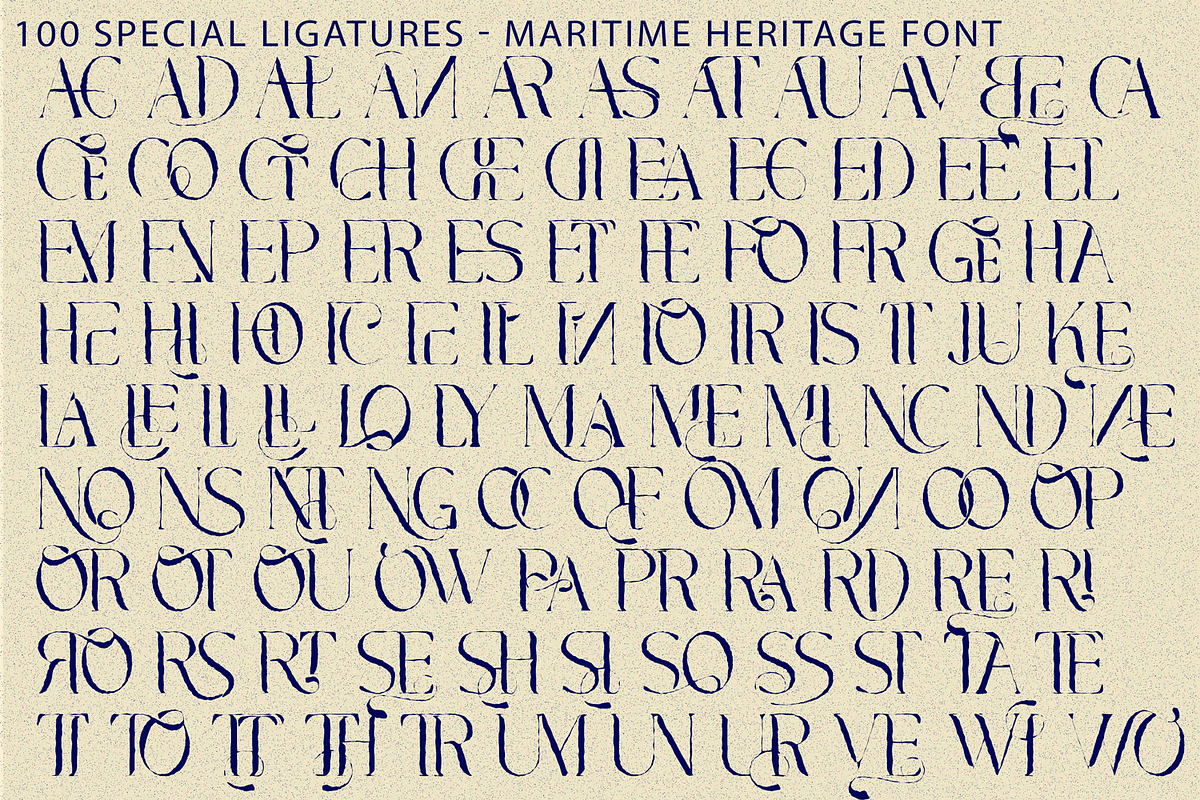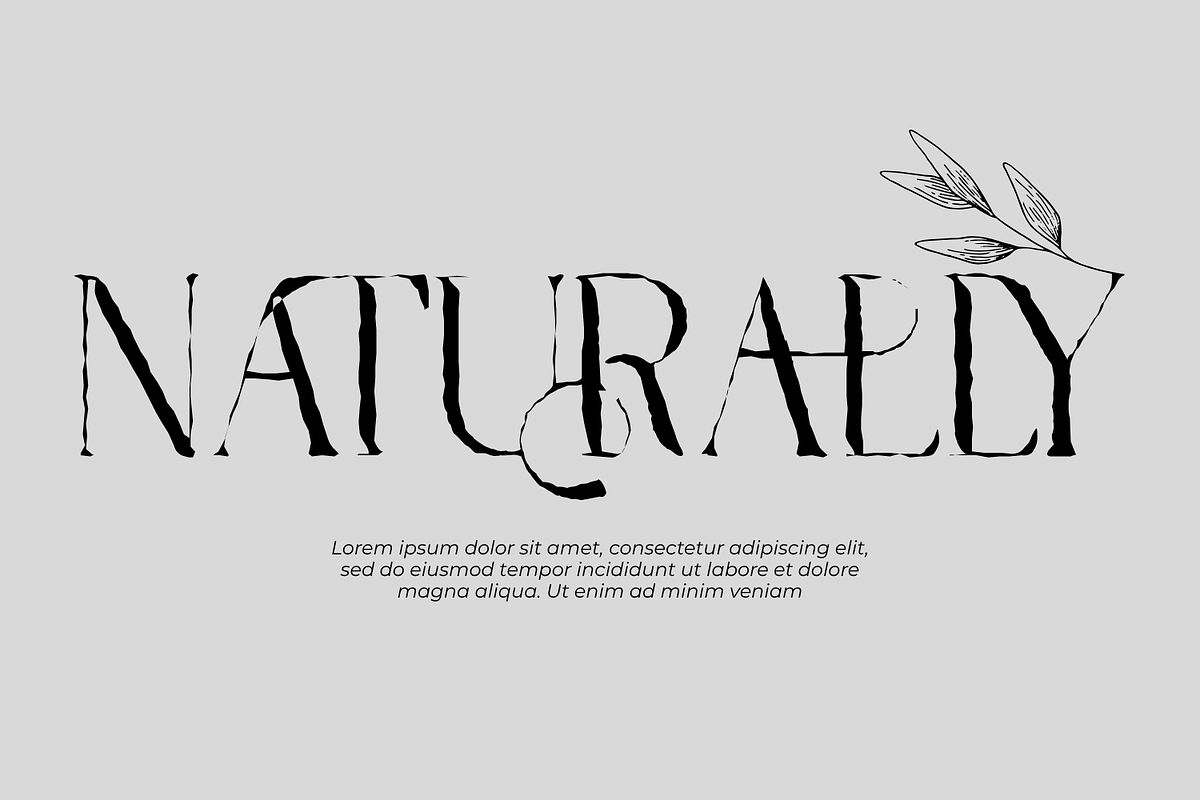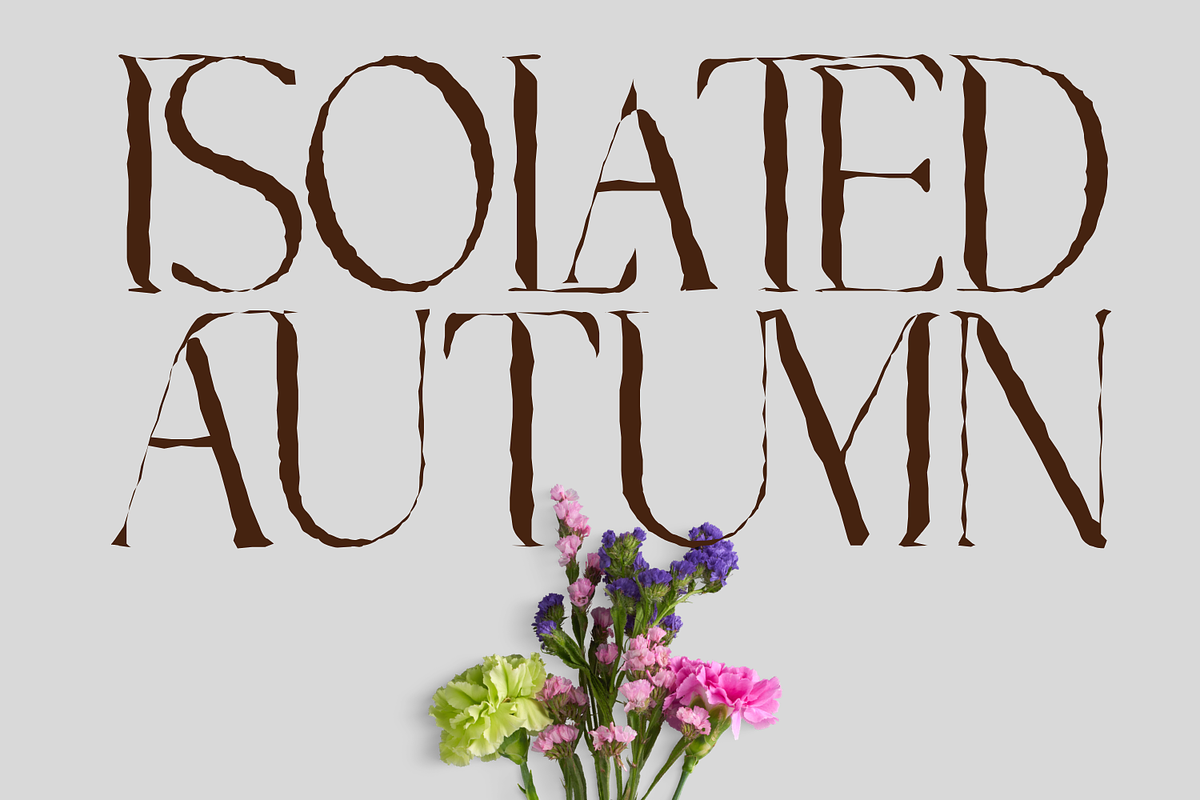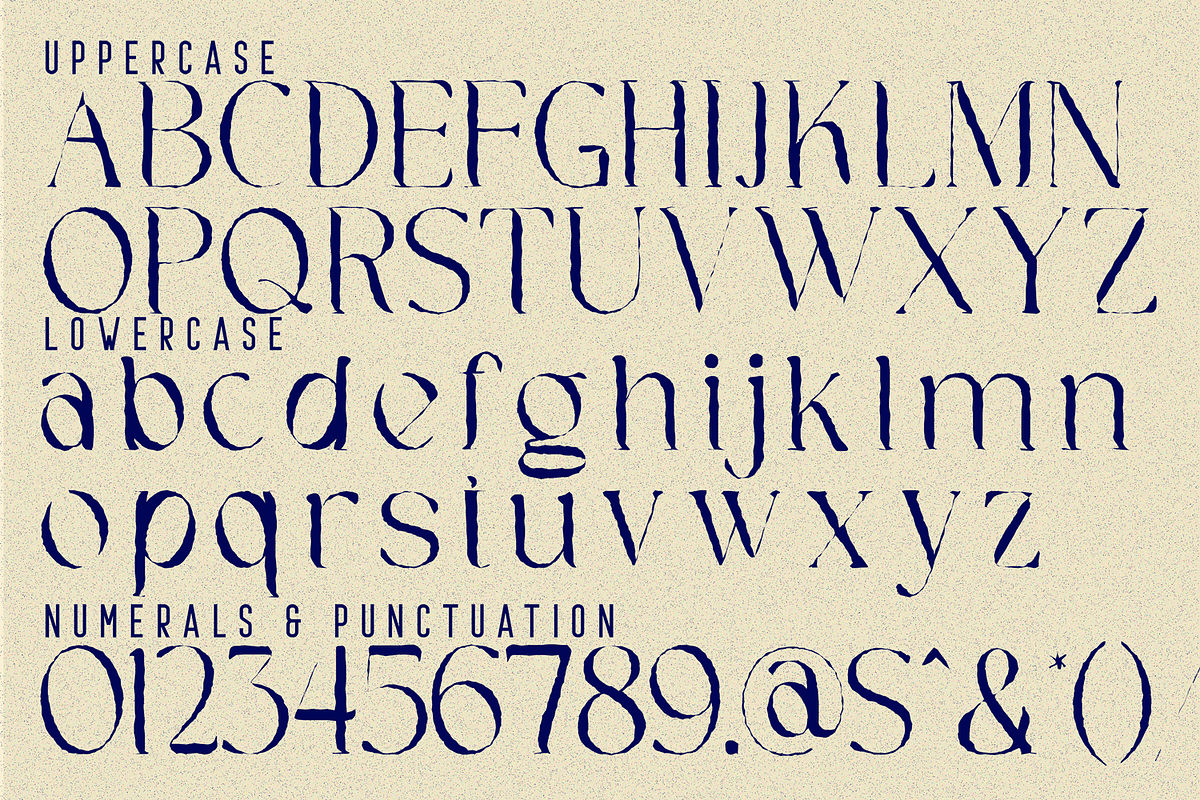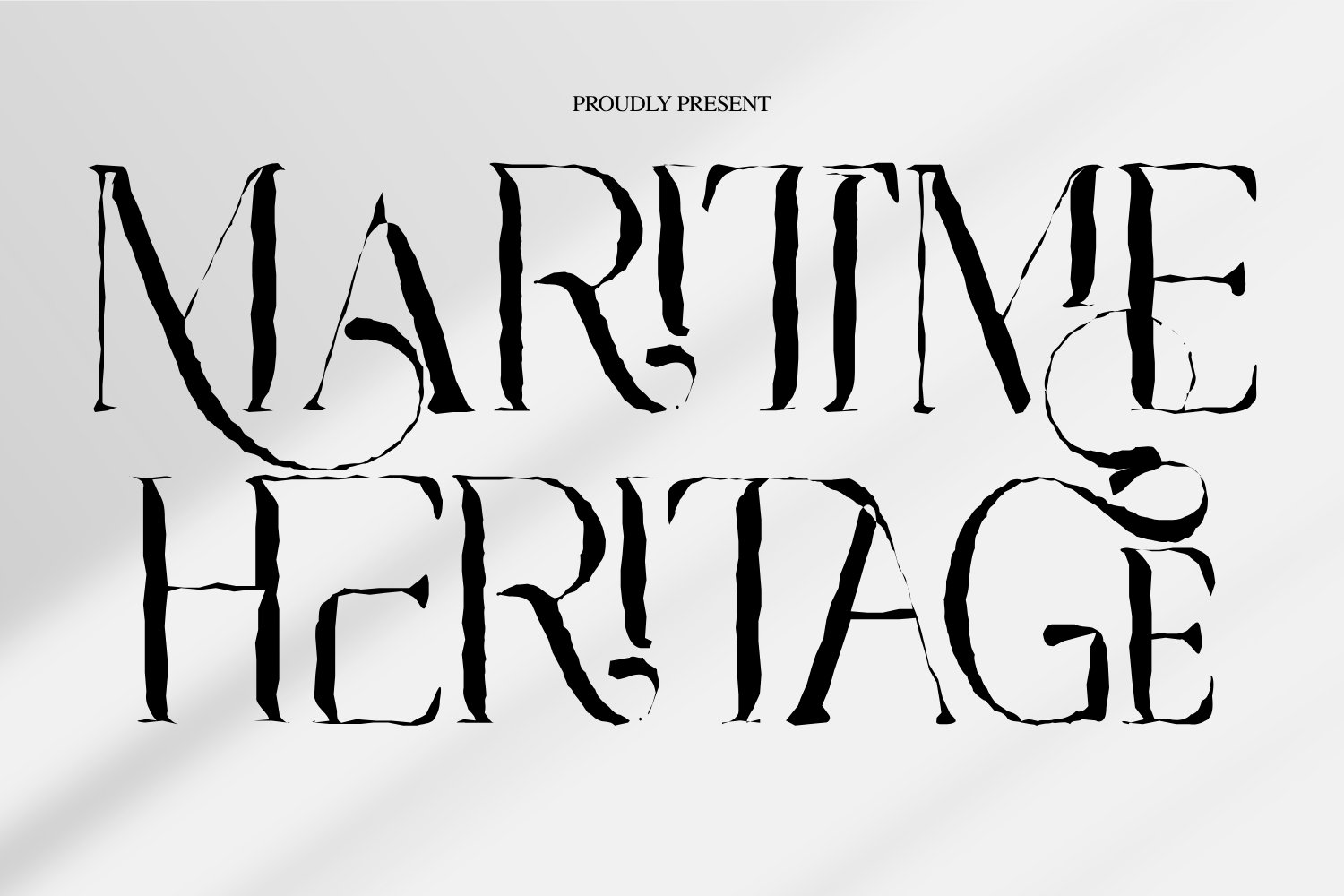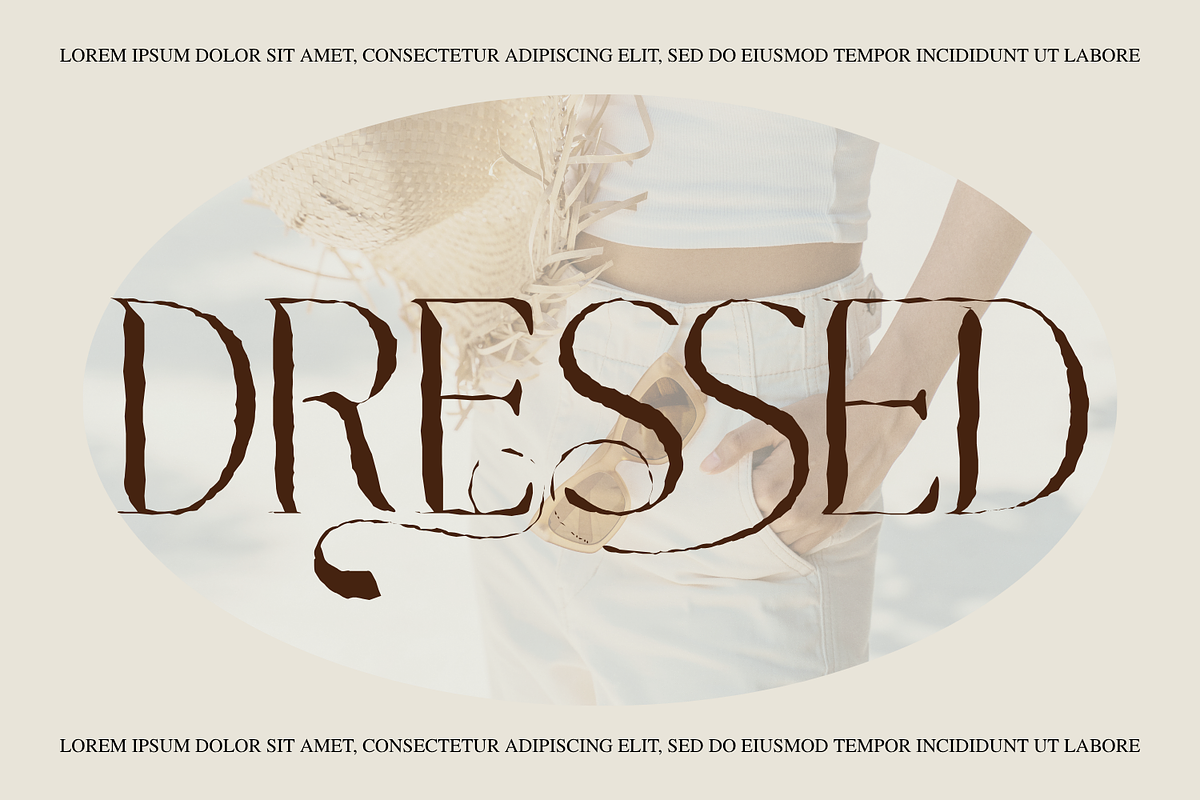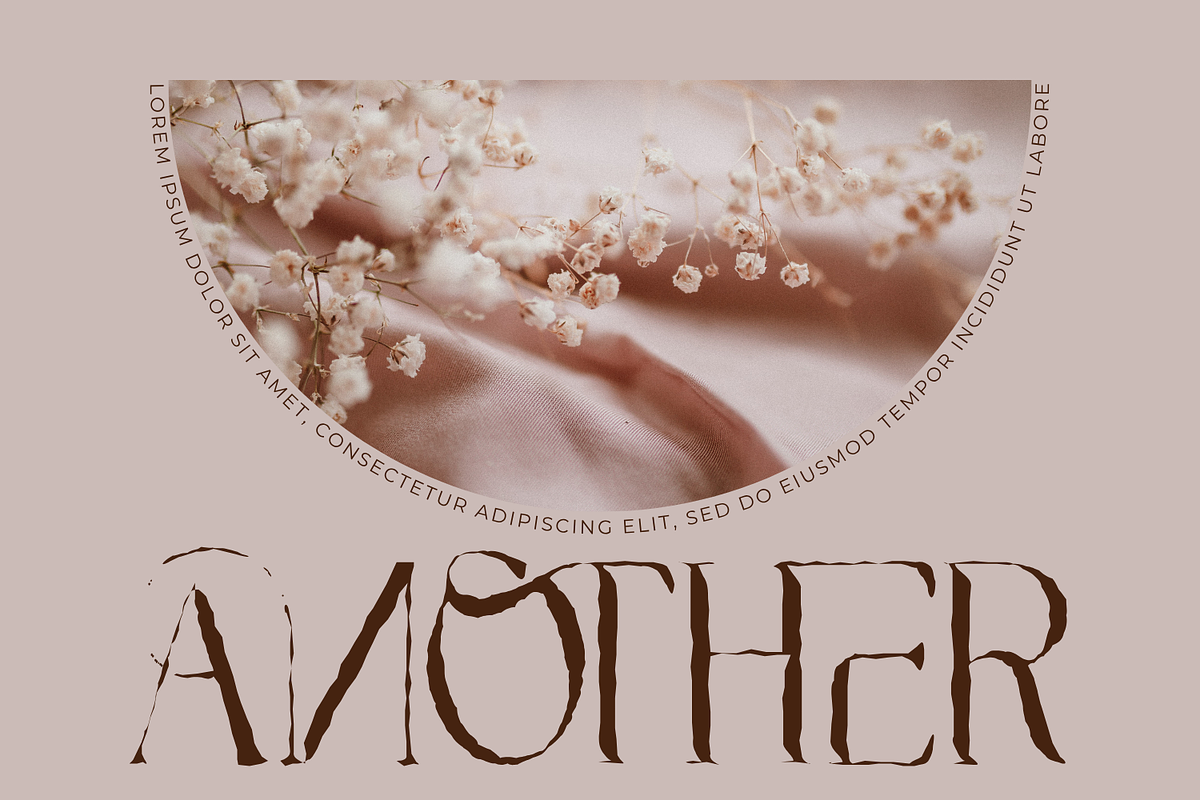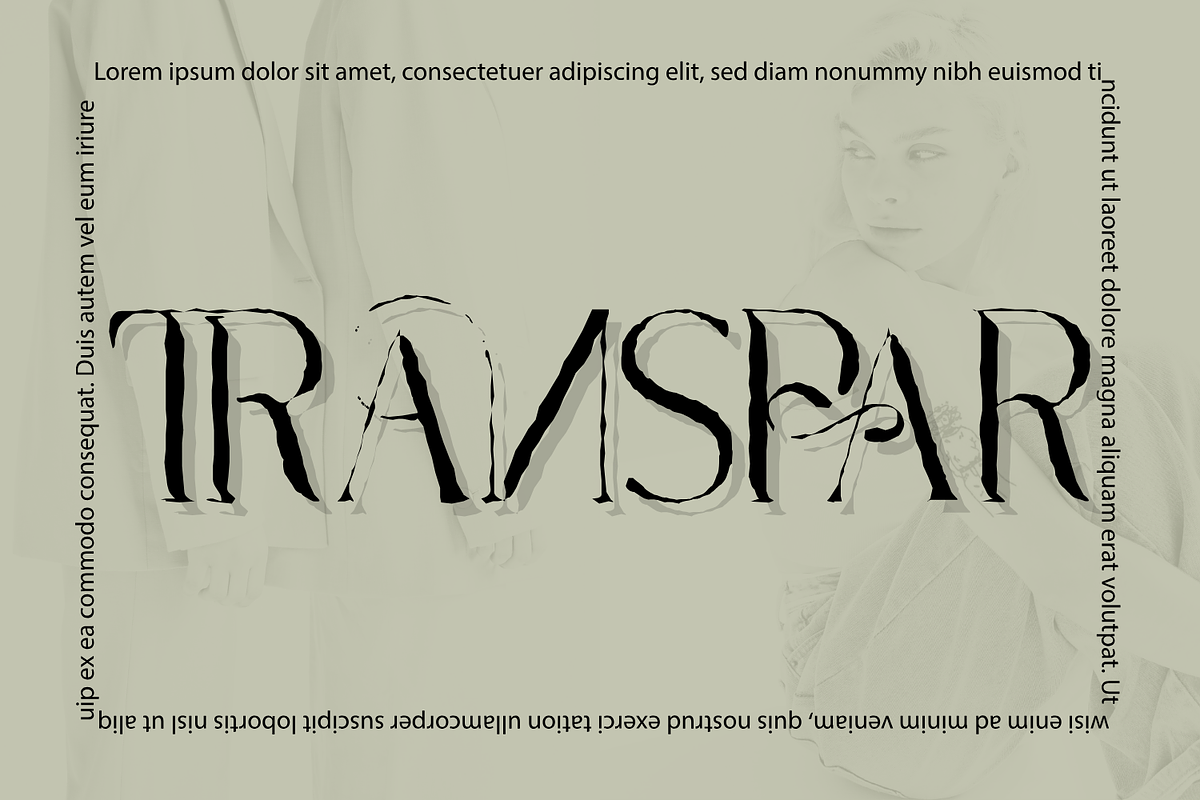
MARITIME HERITAGE - VINTAGE FONT
MARITIME HERITAGE - VINTAGE FONT – Vintage Distressed Serif & Interlocking Editorial Display Font is an expressive display serif that combines timeless elegance with a raw, unconventional character. Built around tall proportions and dramatic thick-to-thin contrast, its letterforms feature sharp serifs, elongated curves, irregular contours, and subtly distressed edges that give the typeface a distinctive handcrafted personality.
Rather than pursuing perfect geometry, Maritime Heritage celebrates imperfection. Uneven outlines, organic details, unexpected terminals, and sweeping forms introduce a sense of movement and individuality to every word. The result is a striking balance between classical serif sophistication and experimental contemporary typography, creating a visual style that feels artistic, mysterious, vintage, and fashion-forward at the same time.
🔤Features:
Uppercase & Lowercase Letters
Around 100 Special Ligatures & Alternates
Accented Characters for multilingual support
🔤About 100 ligatures combined with Stylistic Alternates Font:
AC AD AL AN AR AS AT AU AV BE CA CE CH CO CT DE DI EA EC ED EE EL EM EN EP ER ES ET FE FO FR GE HA HE HI HO IE IC IL IN IO IR IS IT JU KE LA LE LI LL LO LY MA ME MI NC ND NE NG NO NT NS OC OF OM ON OO OP OR OT OU OW PA PR RA RD RE RI RO RS RT SE SH SI SO SS ST TA TE TH TI TO TR TT UM UN UR VE WI WO